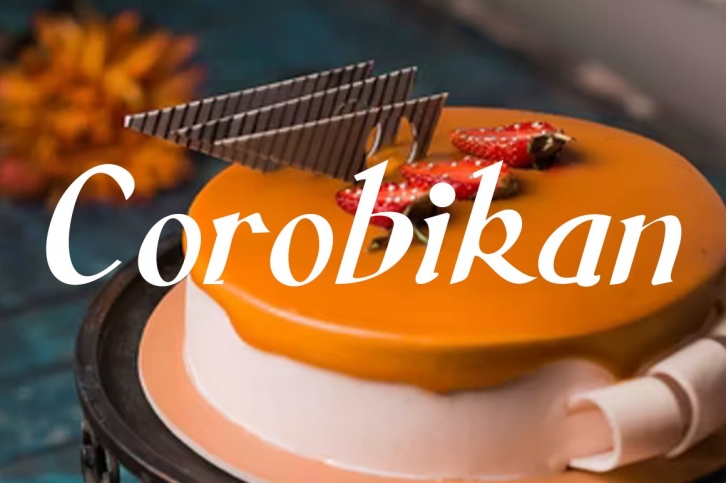
Corobikan is a gorgeous font that was realeased on November 10, 2021. The font can be used in many style contexts and design environments. Perfect for invitations, magazines, websites, logos, and more! It was designed by Gatra Std and the file size is 15.40 MB. Thanks for checking out this font!